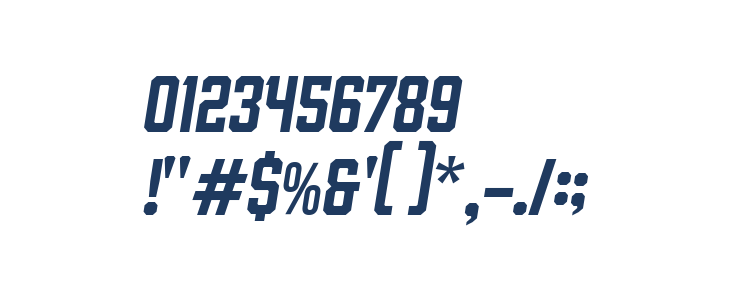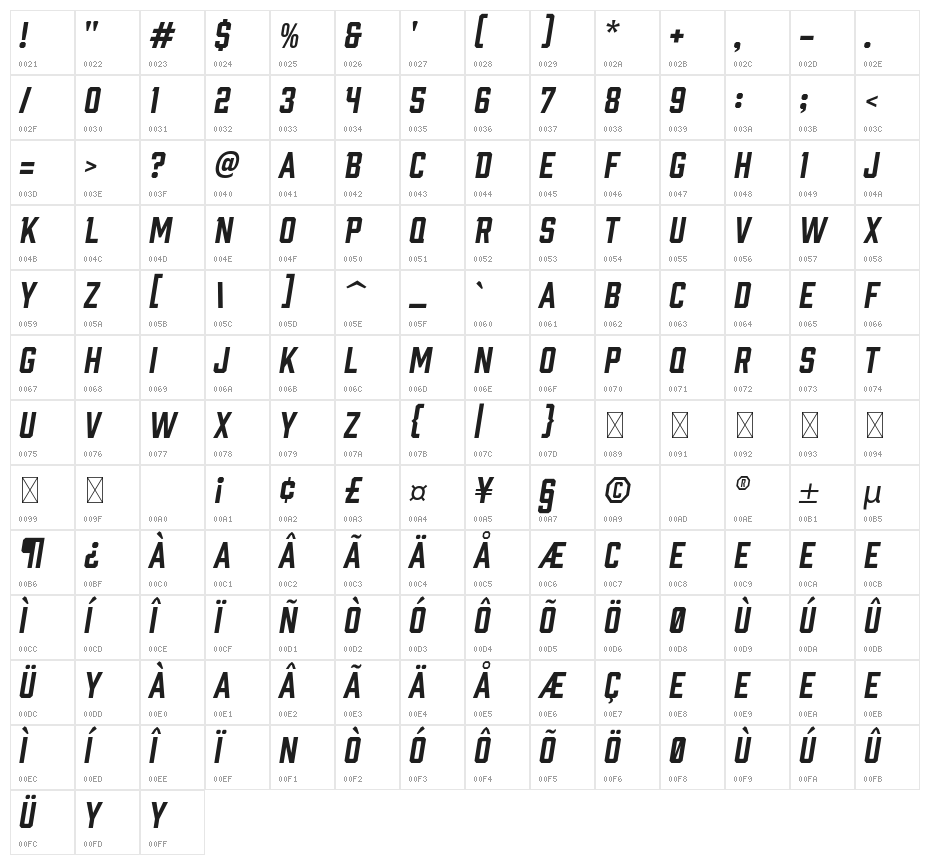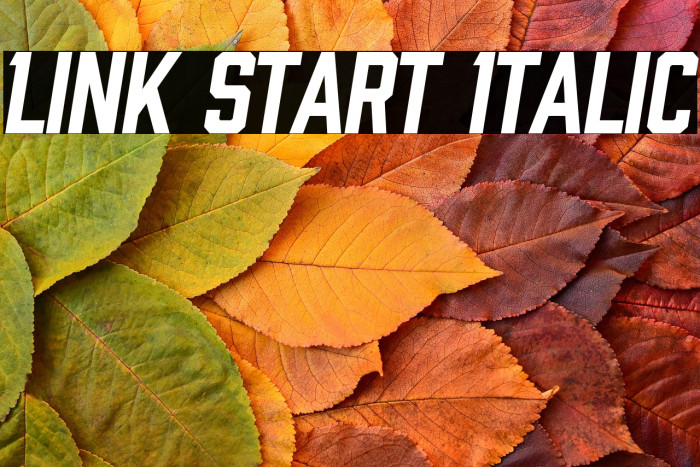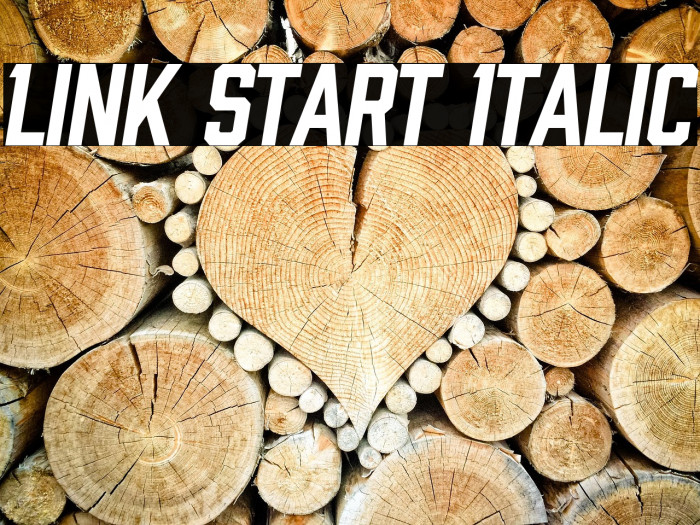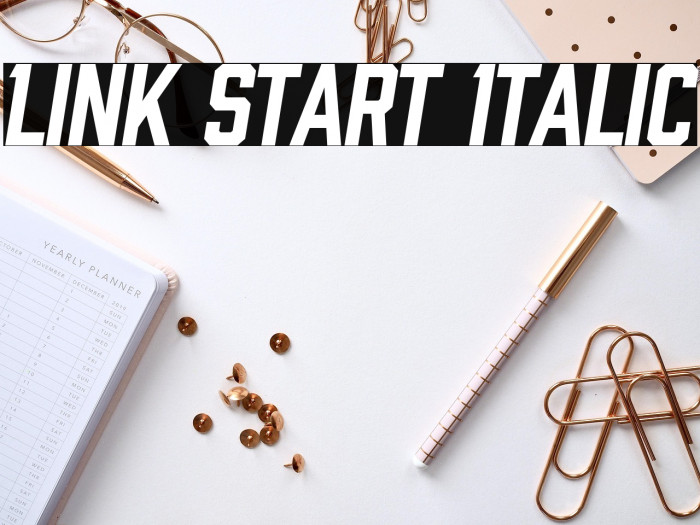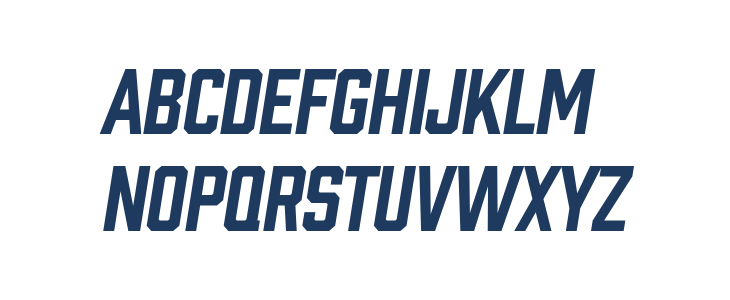
Link Start Italic Font
Link Start Italic Description
This font features a bold and dynamic style with a distinct italic slant, giving it a sense of motion and energy. The characters are designed with sharp, angular edges and a geometric structure, providing a modern and sporty appearance. The uppercase and lowercase letters maintain a consistent height, while the numerals and special characters are crafted to match the overall aesthetic. The font's strong presence makes it suitable for impactful designs, where attention-grabbing text is essential. Its clean lines and uniform stroke widths contribute to a cohesive and professional look.
| Proposed Projects | Ideal for sports branding, dynamic posters, automotive designs, and modern advertising campaigns. |